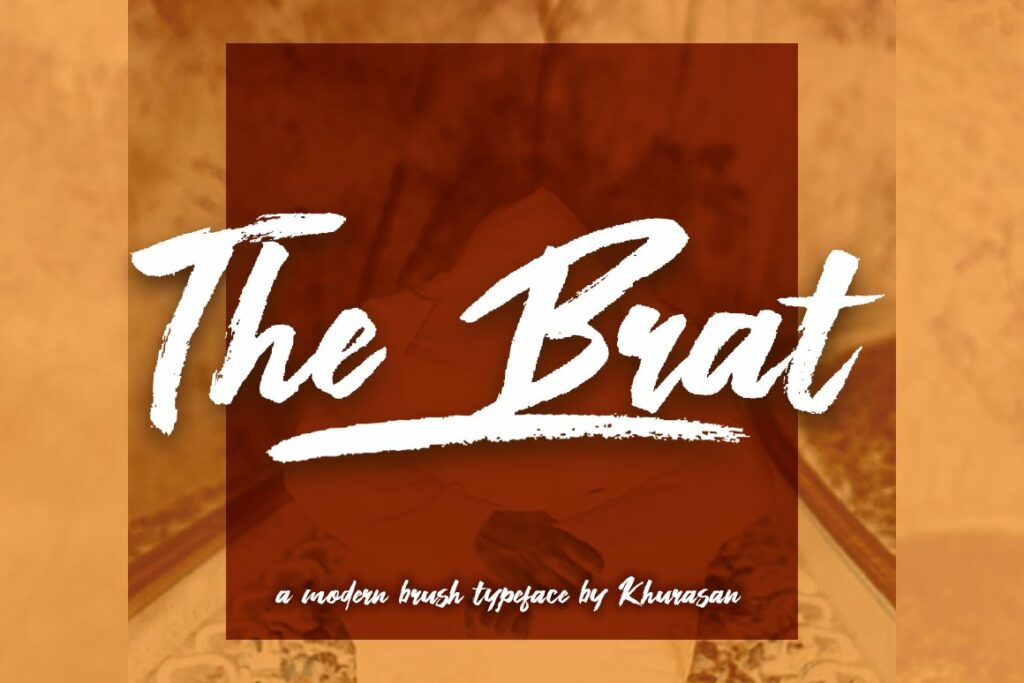
The Brat Font
Introducing The Brat is a fresh handwritten font brush, elegant and vintage feel character set. The Brat font includes a full set capital and lowercase letters, as well as multi-lingual support, currency figures, numerals, & punctuation.
The Brat Brush Script Font